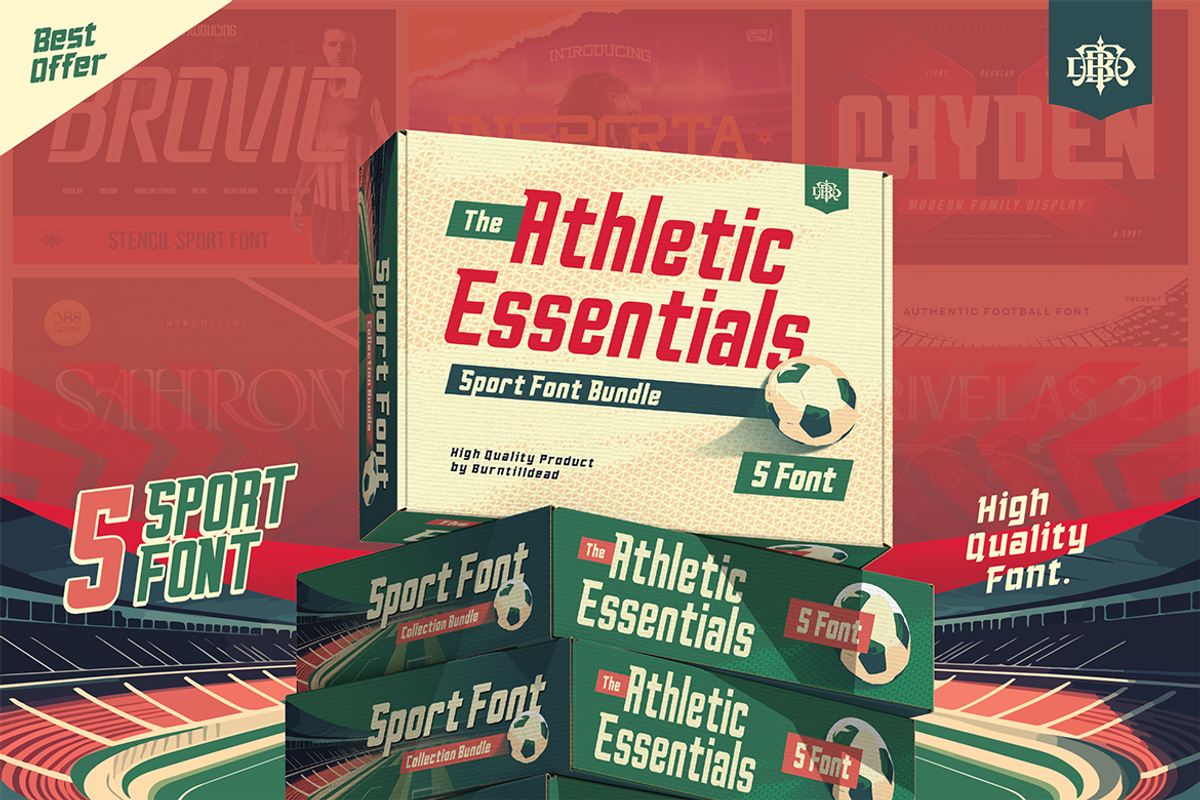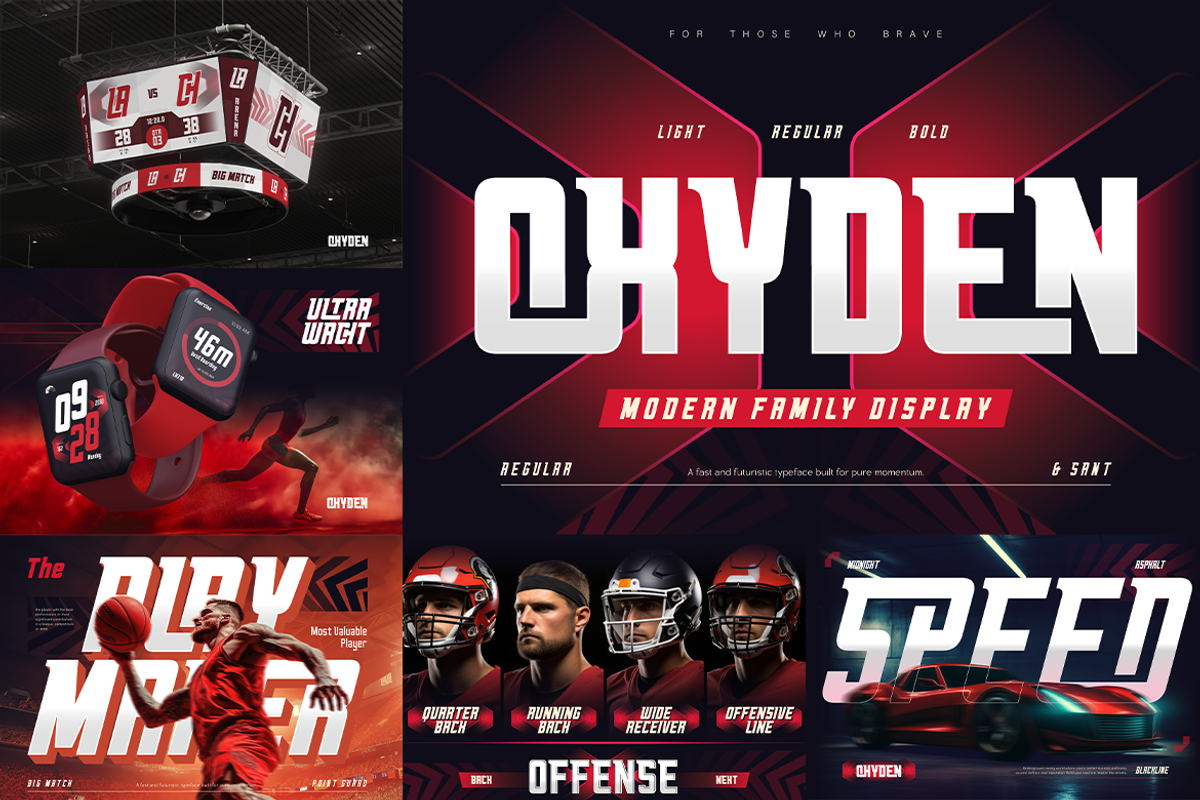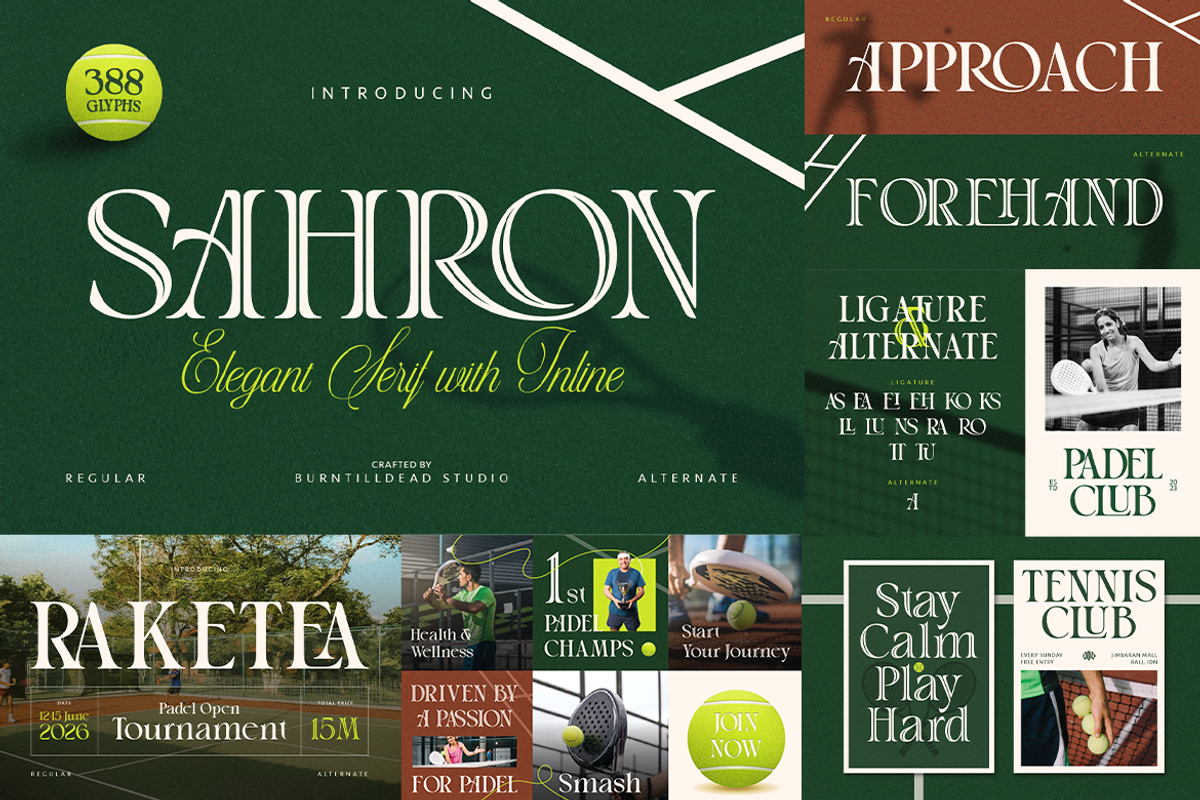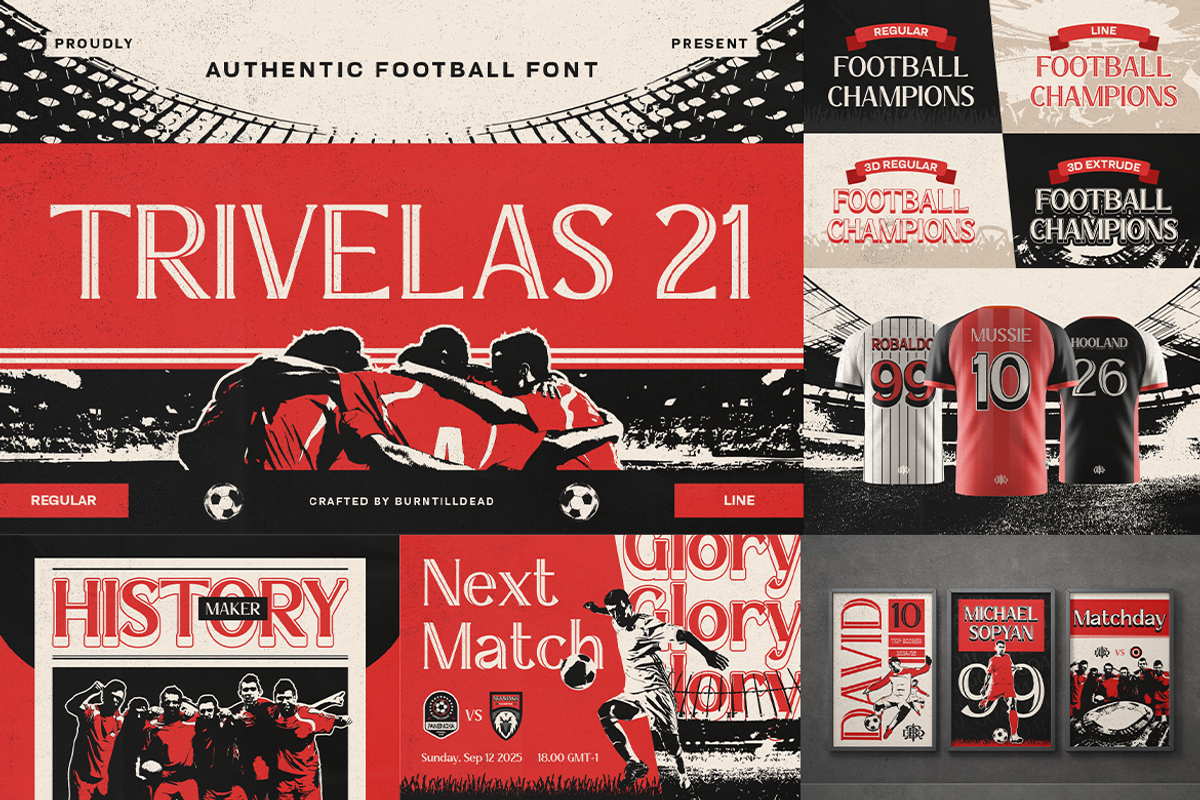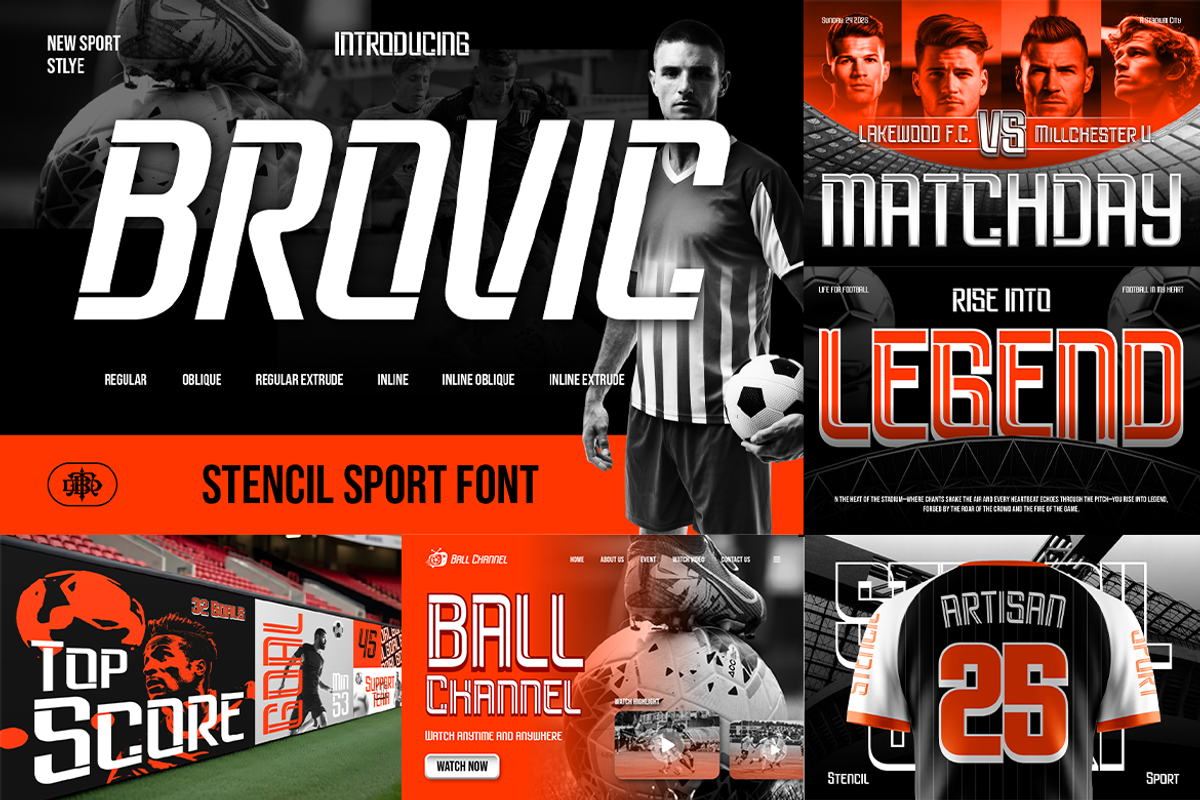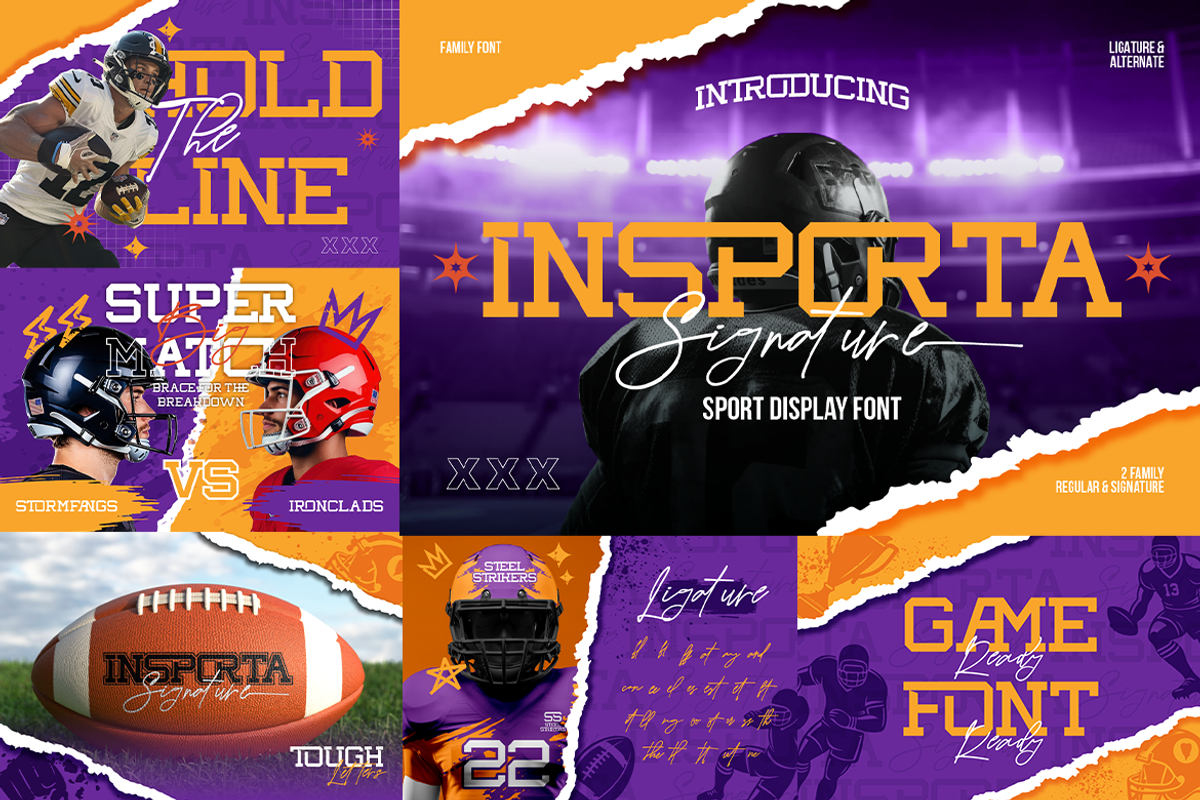
Athletic Essential Font Bundle
Bring strong and energetic vibes into your designs with The Athletic Essentials, a sport font bundle made for bold and eye-catching visuals. Perfect for sports branding, jerseys, posters, and digital content that needs that competitive edge.
This bundle includes 5 powerful fonts:
Brovic – bold stencil sport font inspired by football graphics
Insporta Signature – bold and energetic font duo designed to bring the spirit of competition
Oxyden– modern display typeface designed with a strong geometric structure and confident proportions
Sahron – elegant serif font with a distinctive inline detail that adds character and sophistication
Trivelas21 – Authentic football editorial font inspired by classic sports typography
Each font is designed to deliver a professional sports look, if you're creating football graphics, gym promotions, or esports visuals.
Sports posters & merchandise
Team branding & jerseys
Fitness & gym content
Social media & thumbnails